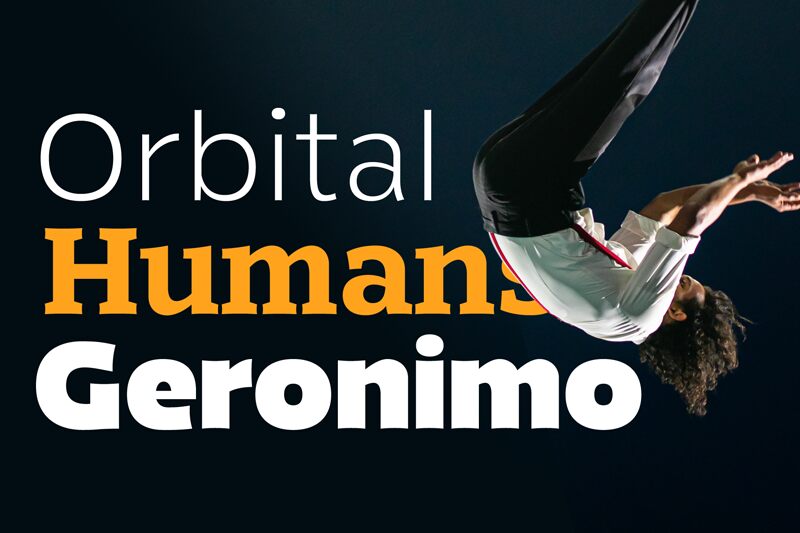
Mensch Black font by Eko Bimantara is a free black sans serif font. Part of the Mensch family, it solves the classic headline dilemma: you want punch without shouting. Its blocky forms, clean cuts, and slightly softened corners feel stout yet human, with sturdy verticals and compact spacing that lock up into strong, ink-solid words. The rhythm is steady and the weight is unapologetic, so your message lands fast and clean.
Using Mensch Black, big titles snap to attention on posters, packaging, sports branding, banners, apparel, and bold social graphics. This free font carries grit without clutter, making short phrases look confident and camera-ready. It also scales down surprisingly well for buttons and badges. Pair it with Mensch Regular for body copy to keep the voice cohesive and legible.